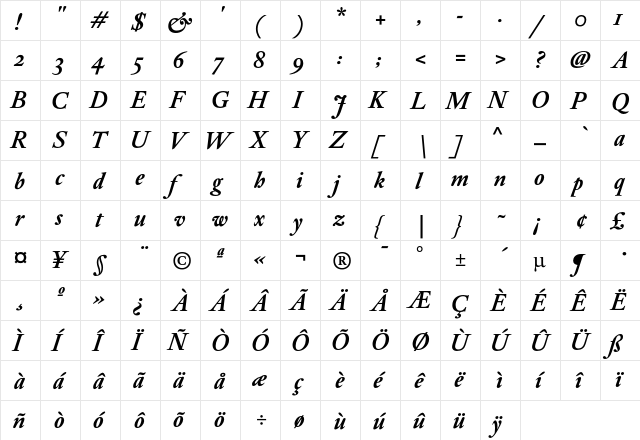
DTL Elzevir ST Bold Italic
Design Context for DTL Elzevir Typeface
DTL Elzevir is a composed and adaptable typeface that performs quietly and consistently across a wide range of design contexts. The dynamic lean of this cut emphasises speed and emphasis in any layout. Its bold stroke weight gives it real presence on the page.
Pro Tip: Try DTL Elzevir for annotation and caption copy alongside an upright companion — the contrast in angle creates a dynamic but ordered typographic system.